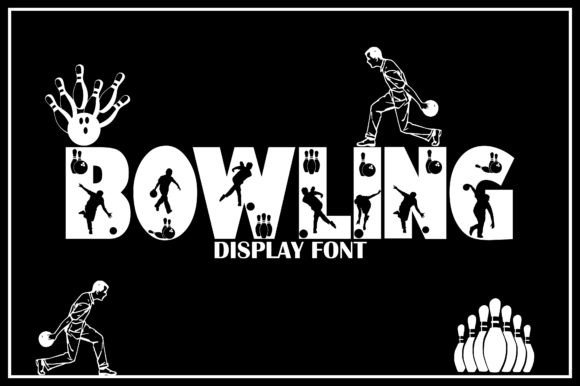
The Ultimate Guide to Bowling Font: Elevate Your Designs with a Fun and Dynamic Display Font
I’ll never forget the time I was working on a project for a client’s birthday party invitation. I had the design concept nailed, but something was missing – the perfect font. I scoured the internet, tried out countless fonts, but none seemed quite right. That was until I stumbled upon Bowling Font. It was love at first sight! 🎉 In this article, I’ll share my experience with Bowling Font, its features, and how to make the most of it in your designs.
An Honest Review of Bowling Font
Bowling Font is a fun and dynamic decorative display font that’s perfect for adding a touch of playfulness to your designs. Here’s what I love about it:
• ✨ Unique and eye-catching design that’s sure to grab attention
• ✅ Highly versatile and suitable for a wide range of design projects
• 🎉 Perfect for titles, headings, and short text
While Bowling Font is an excellent choice, it’s not without its quirks. Here are a few things to keep in mind:
• 🤔 May not be the best choice for body text or long paragraphs
• ⚠️ Limited availability of certain characters and glyphs
The Backstory of Bowling Font
Bowling Font was designed with the intention of creating a fun and dynamic display font that would add a touch of playfulness to designs. The designer, inspired by the world of bowling, aimed to create a font that would evoke the feeling of excitement and energy. With its unique and eye-catching design, Bowling Font is sure to grab attention and leave a lasting impression.
What is Bowling Font? Bowling Font is a fun and dynamic decorative display font that’s perfect for adding a touch of playfulness to your designs.
Is Bowling Font suitable for body text? No, Bowling Font is best used for titles, headings, and short text. It’s not recommended for body text or long paragraphs.
In conclusion, Bowling Font is a fantastic addition to any design project. Its unique and eye-catching design, combined with its versatility and playfulness, make it an excellent choice for designers, crafters, and creative hobbyists alike. With its wide range of applications and ease of use, Bowling Font is sure to become a favorite in your design arsenal.